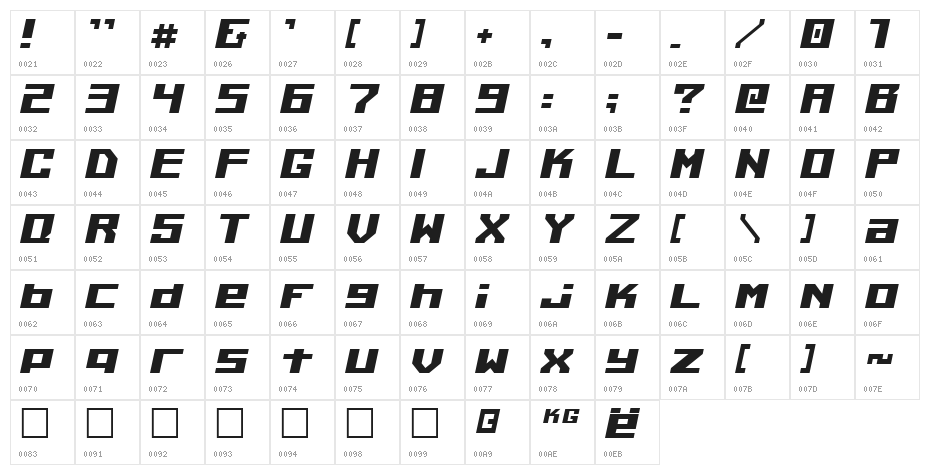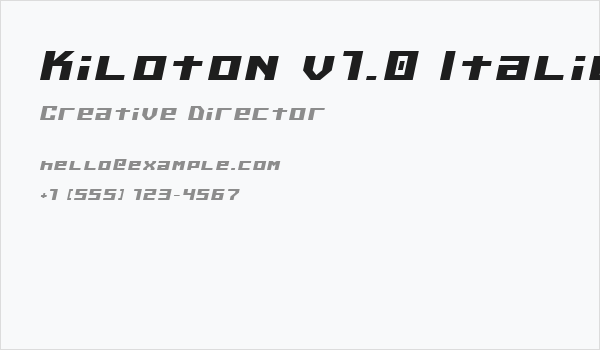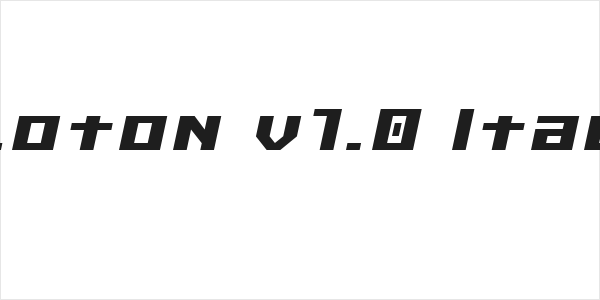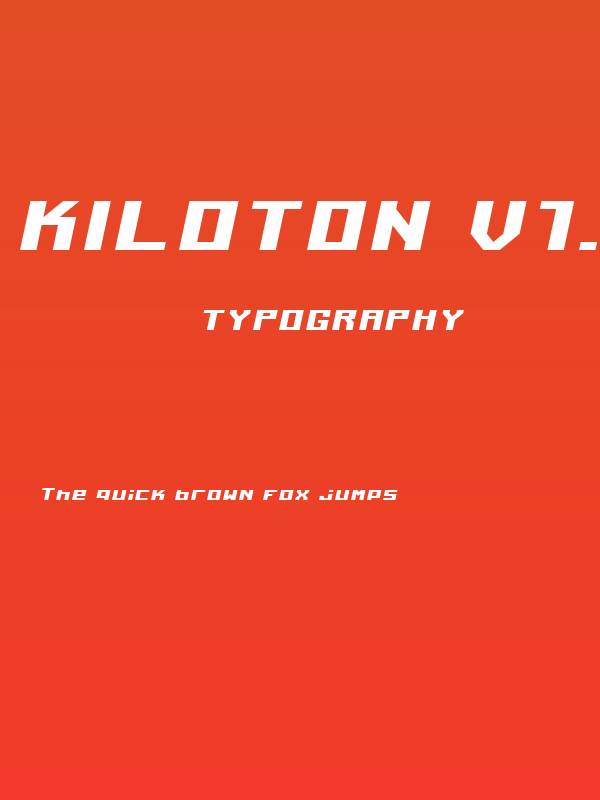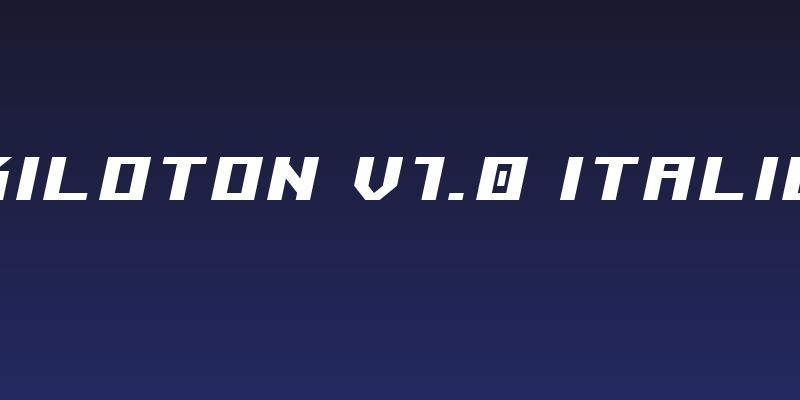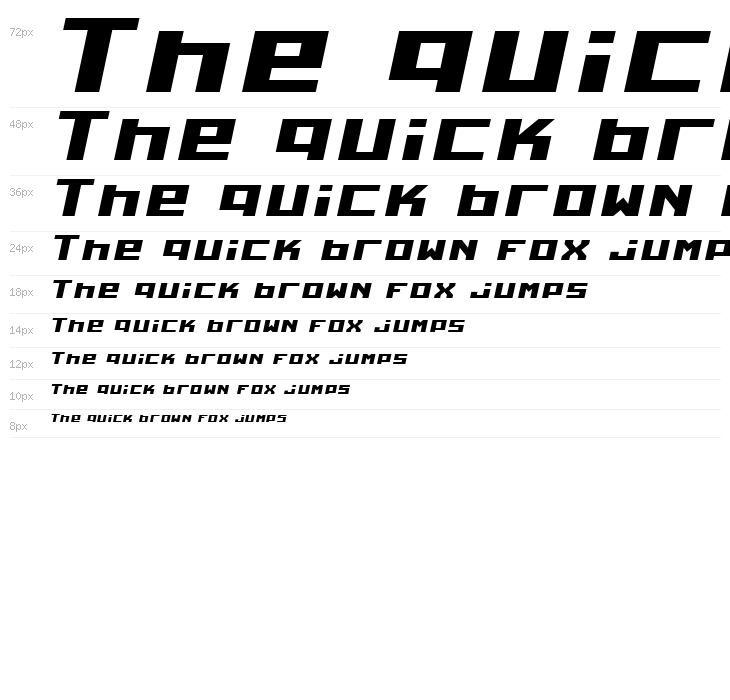
Kiloton v1.0 Italic Font
Kiloton v1.0 Italic Description
This font features a bold and dynamic style with a distinct italic slant, giving it a sense of motion and energy. The characters are angular and geometric, with sharp edges and a modern aesthetic. The uppercase and lowercase letters maintain a consistent style, with the lowercase mirroring the uppercase in form but with a slightly reduced height. The numerals are clear and bold, matching the overall style of the alphabet. Special characters are included, maintaining the same angular and bold characteristics. This font is ideal for projects that require a strong, impactful visual presence.
| Proposed Projects | Ideal for sports branding, action movie posters, video game titles, and dynamic advertising campaigns. |